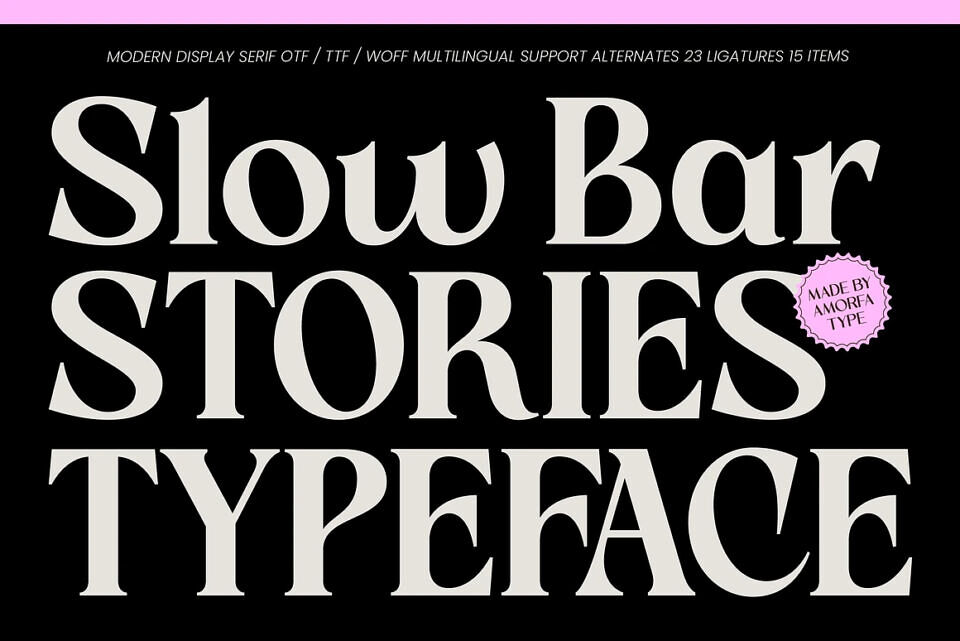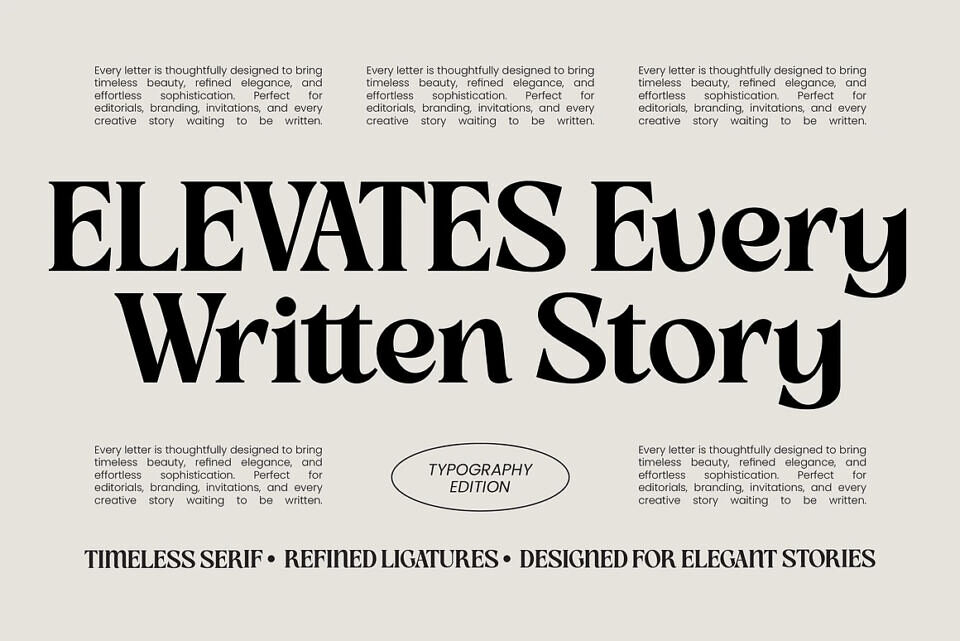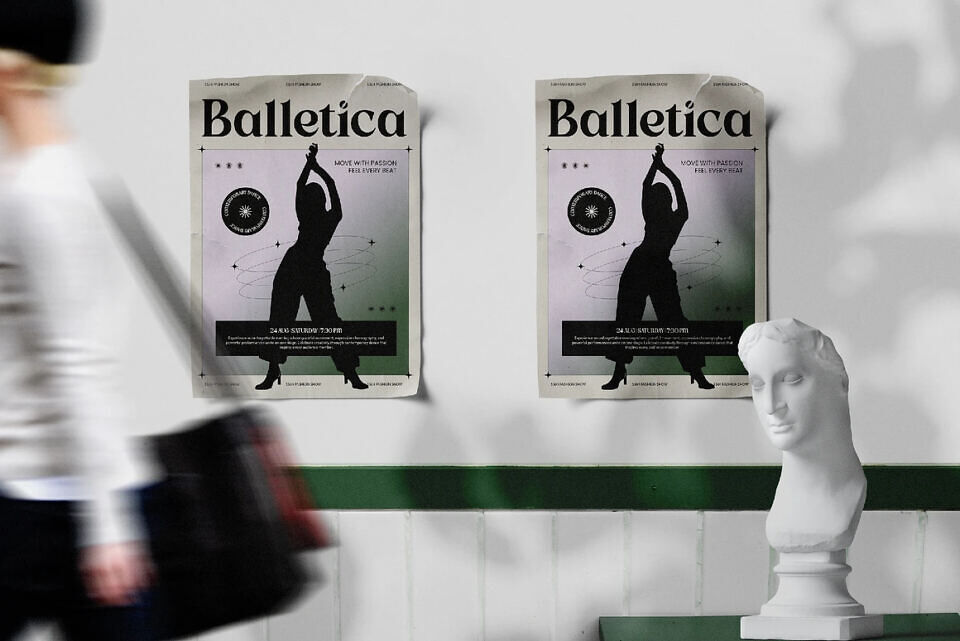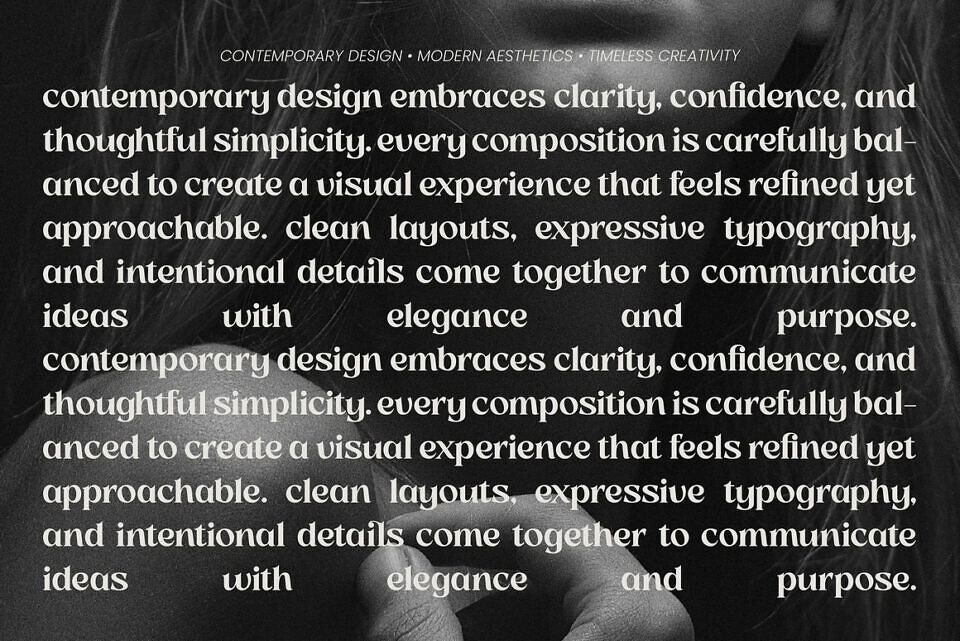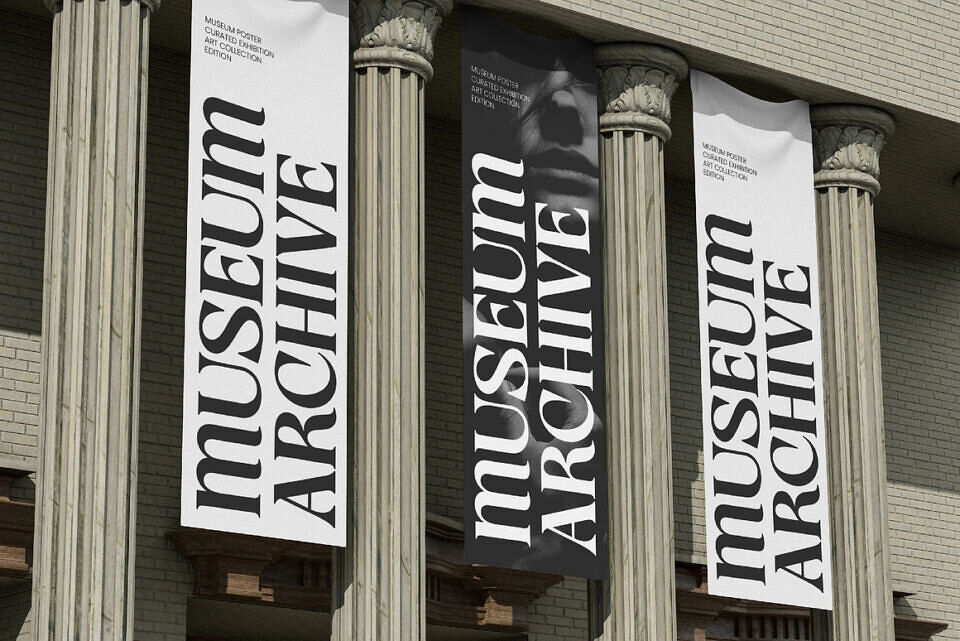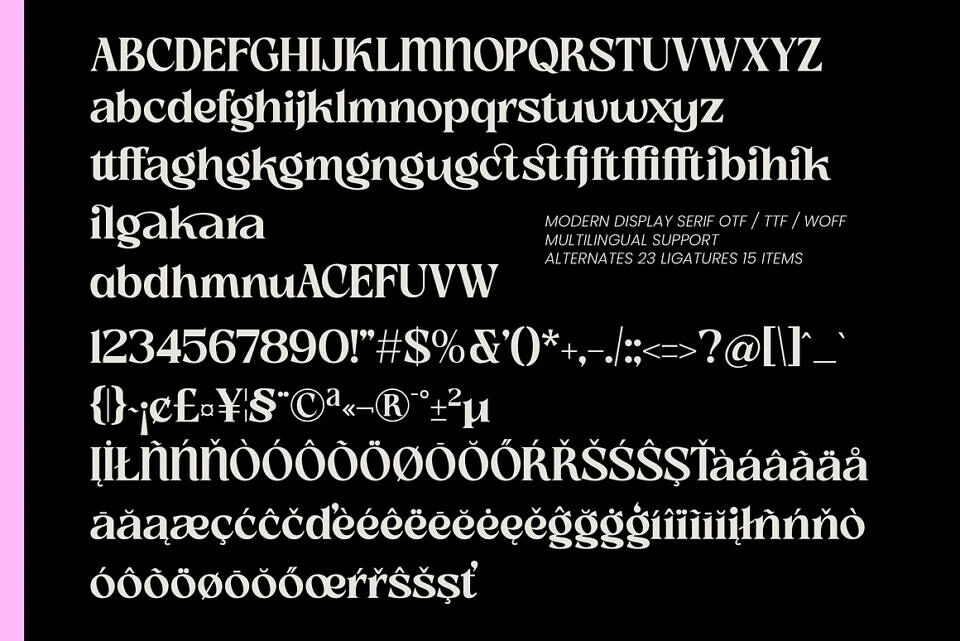
Slow Bar Stories is a modern display serif typeface designed with refined proportions, contemporary elegance, and a strong editorial presence. Crafted to deliver sophistication and clarity, this typeface combines timeless serif craftsmanship with modern design sensibilities, creating typography that feels confident, stylish, and visually memorable.
Inspired by luxury publications, premium branding systems, contemporary fashion campaigns, and modern editorial layouts, Slow Bar Stories offers a clean yet expressive personality that elevates every visual composition.